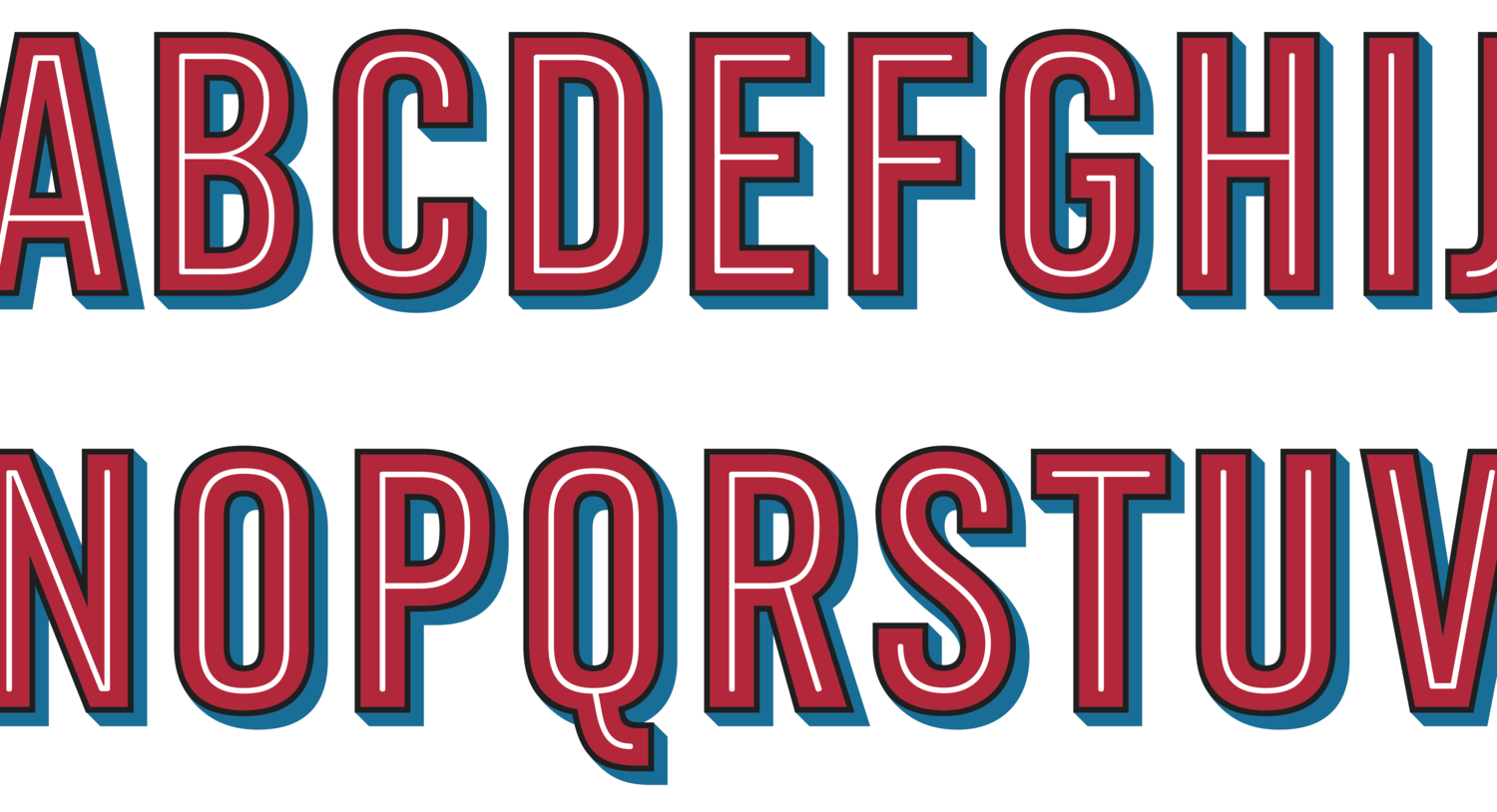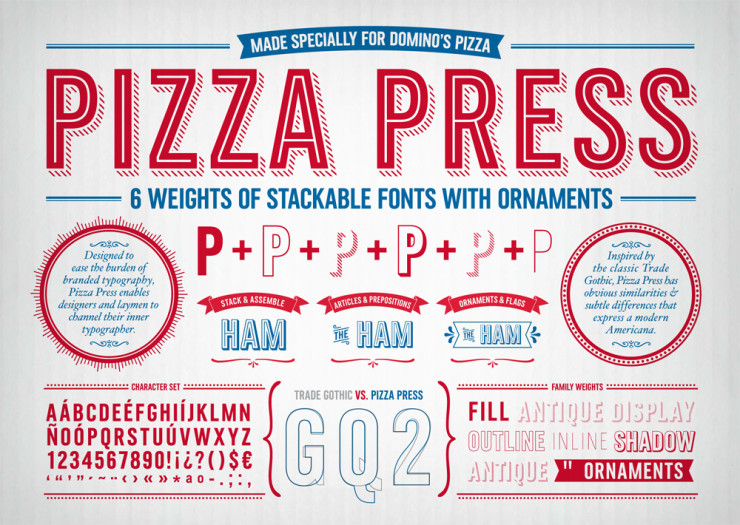
Domino's Pizza Font . Since 2014, domino’s pizza uses a custom typeface named pizza press. What font does domino’s pizza use? It is based on geometric shapes, especially. Domino’s pizza, a global giant in the pizza industry, is instantly recognizable by its iconic logo. This design directly links to domino’s history, specifically to 1965, when the. The time is now 19:01. The closest font you can get for the domino’s pizza logo is pluto sans heavy font. The font used in a logo is the voice of the brand. The font used in the domino’s pizza logo. The font of the domino’s pizza logo is. The domino’s pizza logo features a single domino with three dots—two on the bottom and one on the top. The font used for domino’s pizza logo is futura condensed extrabold, which is a geometric sans serif font designed by paul renner and published. The correct font is futura condensed extrabold. However, the domino’s pizza font, which spells out its.
It is based on geometric shapes, especially. Since 2014, domino’s pizza uses a custom typeface named pizza press. The domino’s pizza logo features a single domino with three dots—two on the bottom and one on the top. However, the domino’s pizza font, which spells out its. What font does domino’s pizza use? The font used in the domino’s pizza logo. The font used in a logo is the voice of the brand. The font of the domino’s pizza logo is. The time is now 19:01. The font used for domino’s pizza logo is futura condensed extrabold, which is a geometric sans serif font designed by paul renner and published.
Domino's Pizza Font The font of the domino’s pizza logo is. The time is now 19:01. Since 2014, domino’s pizza uses a custom typeface named pizza press. This design directly links to domino’s history, specifically to 1965, when the. However, the domino’s pizza font, which spells out its. The domino’s pizza logo features a single domino with three dots—two on the bottom and one on the top. The font used for domino’s pizza logo is futura condensed extrabold, which is a geometric sans serif font designed by paul renner and published. The font used in the domino’s pizza logo. What font does domino’s pizza use? The correct font is futura condensed extrabold. Domino’s pizza, a global giant in the pizza industry, is instantly recognizable by its iconic logo. The font used in a logo is the voice of the brand. The closest font you can get for the domino’s pizza logo is pluto sans heavy font. The font of the domino’s pizza logo is. It is based on geometric shapes, especially.
Domino's Pizza box so many fonts! typography Domino's Pizza Font The closest font you can get for the domino’s pizza logo is pluto sans heavy font. The font used in the domino’s pizza logo. The correct font is futura condensed extrabold. Since 2014, domino’s pizza uses a custom typeface named pizza press. However, the domino’s pizza font, which spells out its. Domino’s pizza, a global giant in the pizza industry,. Domino's Pizza Font.
Domino's Pizza Wikipedia Domino's Pizza Font Since 2014, domino’s pizza uses a custom typeface named pizza press. Domino’s pizza, a global giant in the pizza industry, is instantly recognizable by its iconic logo. What font does domino’s pizza use? It is based on geometric shapes, especially. The time is now 19:01. The font used in a logo is the voice of the brand. This design directly. Domino's Pizza Font.
A stackable typeface for Domino’s Pizza. Monotype Fonts Domino's Pizza Font Since 2014, domino’s pizza uses a custom typeface named pizza press. However, the domino’s pizza font, which spells out its. Domino’s pizza, a global giant in the pizza industry, is instantly recognizable by its iconic logo. The domino’s pizza logo features a single domino with three dots—two on the bottom and one on the top. The font used in a. Domino's Pizza Font.
Domino’s Logo History The Story Of The Domino’s Pizza Logo Domino's Pizza Font The correct font is futura condensed extrabold. Domino’s pizza, a global giant in the pizza industry, is instantly recognizable by its iconic logo. The time is now 19:01. The font used in the domino’s pizza logo. The closest font you can get for the domino’s pizza logo is pluto sans heavy font. The domino’s pizza logo features a single domino. Domino's Pizza Font.
Domino’s Pizza Fonts In Use Domino's Pizza Font Since 2014, domino’s pizza uses a custom typeface named pizza press. The correct font is futura condensed extrabold. The time is now 19:01. This design directly links to domino’s history, specifically to 1965, when the. The font used in the domino’s pizza logo. The font used in a logo is the voice of the brand. The domino’s pizza logo features. Domino's Pizza Font.
A stackable typeface for Domino’s Pizza. Monotype. Domino's Pizza Font The time is now 19:01. The font used in a logo is the voice of the brand. It is based on geometric shapes, especially. The font used for domino’s pizza logo is futura condensed extrabold, which is a geometric sans serif font designed by paul renner and published. What font does domino’s pizza use? However, the domino’s pizza font, which. Domino's Pizza Font.
Domino's Pizza Logo LogoDix Domino's Pizza Font The font used in a logo is the voice of the brand. The closest font you can get for the domino’s pizza logo is pluto sans heavy font. The font used for domino’s pizza logo is futura condensed extrabold, which is a geometric sans serif font designed by paul renner and published. The font used in the domino’s pizza logo.. Domino's Pizza Font.